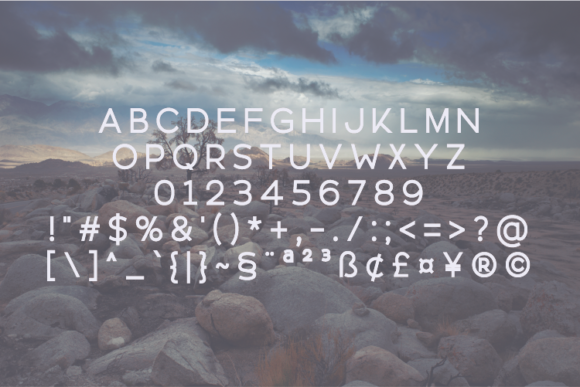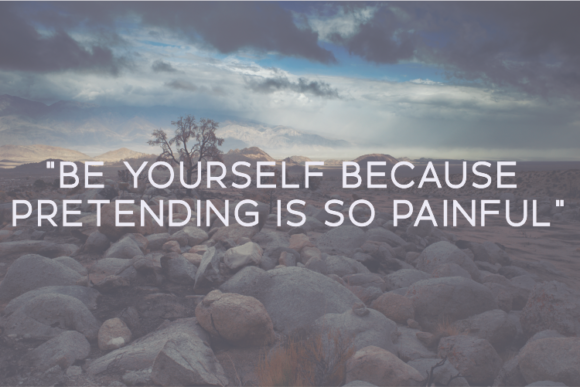
Introduction to Exeload Font
Exeload is a minimal and neat sans serif font.
Key Features of Exeload Font
Why Choose Exeload Font?
Exeload Font offers exceptional quality and versatility, making it a valuable addition to your design toolkit. Whether you’re creating for personal projects or commercial use, Exeload Font delivers professional results.